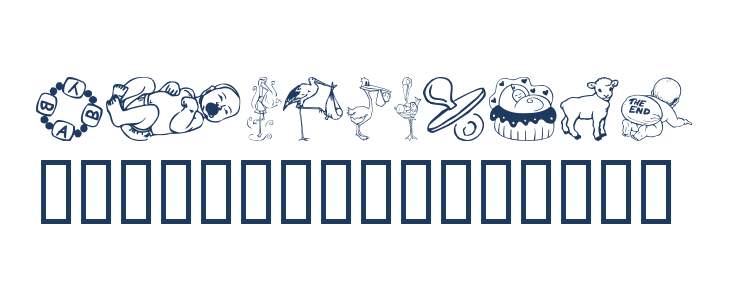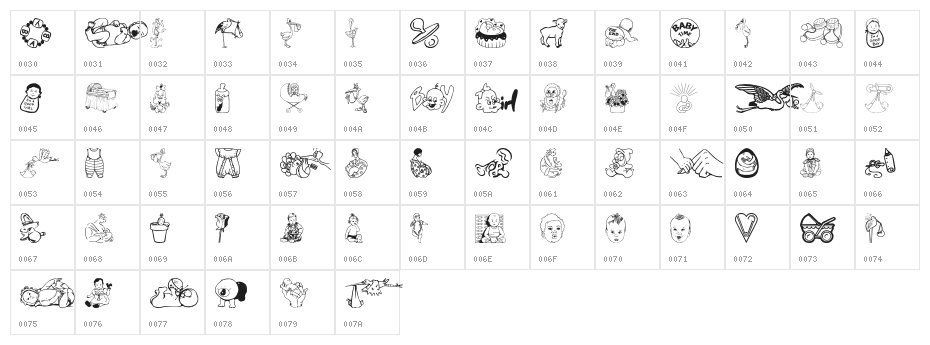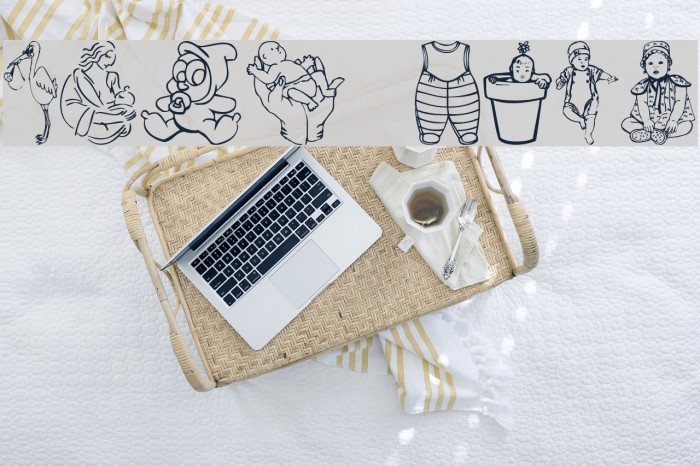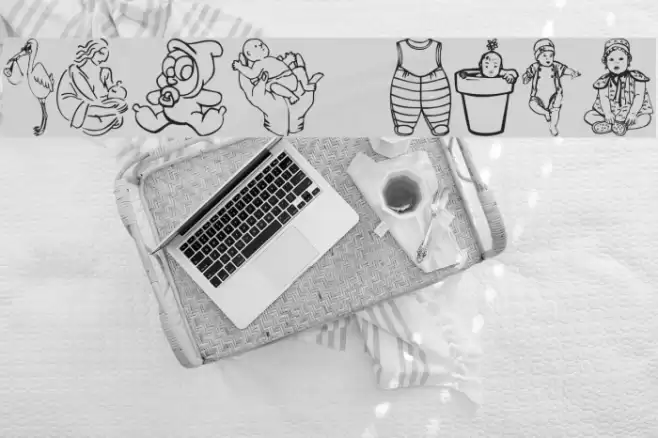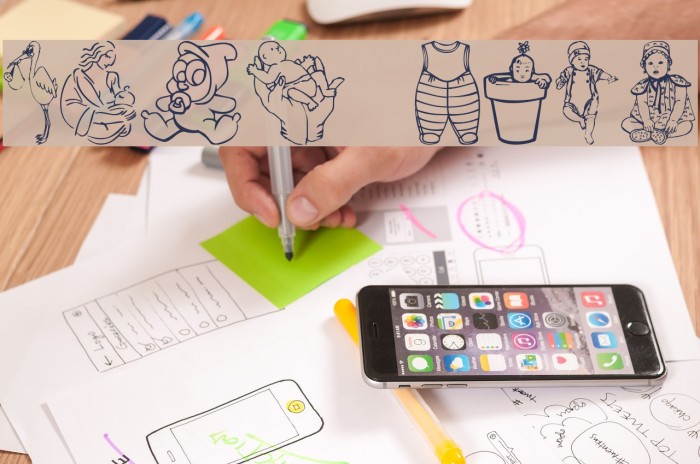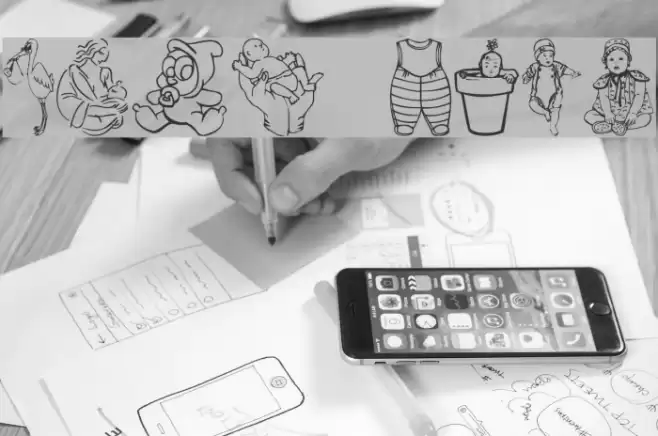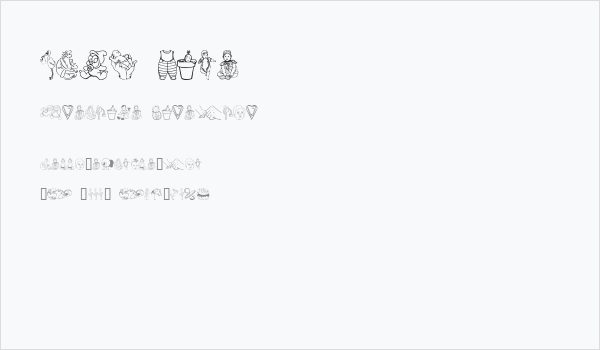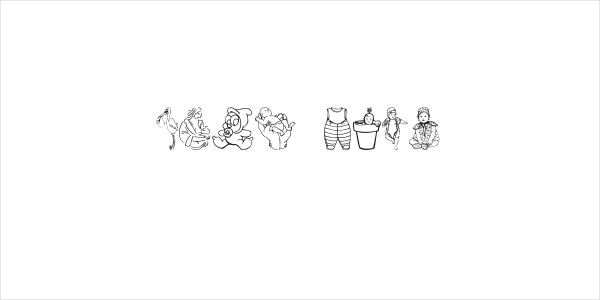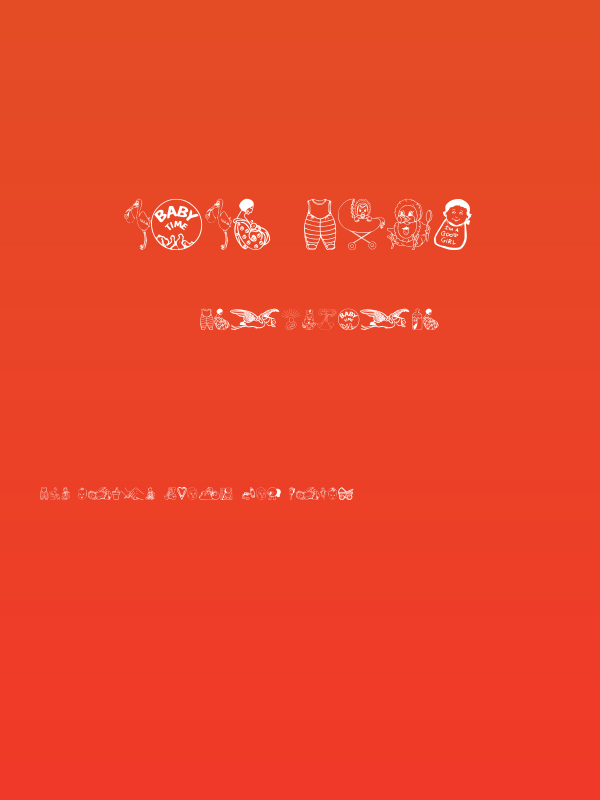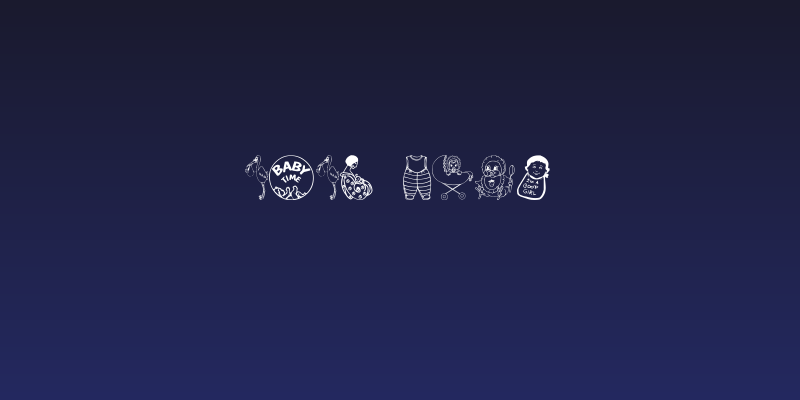
Baby Time Font
| Overall Style | Decorative, Playful, Whimsical |
| Use Case | Illustrative elements for design projects, not for text. |
| Proposed Projects | Children's party invitations, baby shower cards, scrapbooking, nursery decor, educational materials, themed event flyers. |